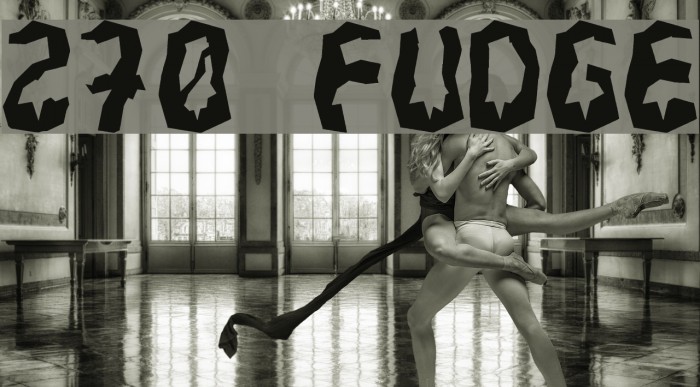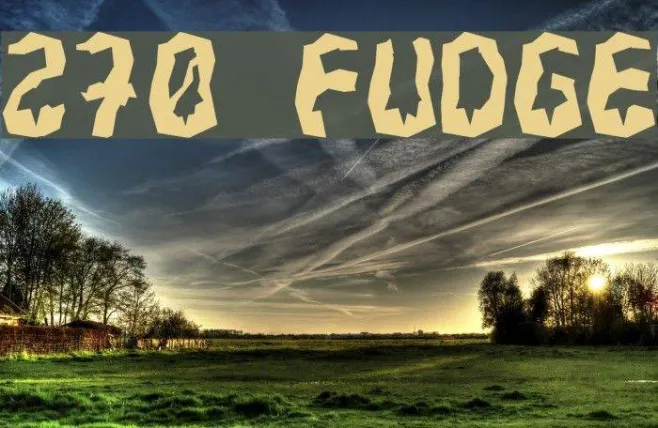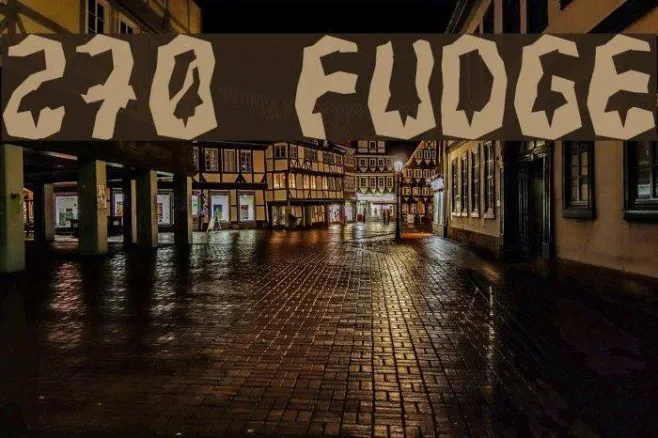
270 Fudge Font
This font features a bold and jagged style, reminiscent of rough, hand-cut shapes. The characters have an uneven, rugged appearance, giving them a dynamic and edgy feel. The uppercase and lowercase letters maintain a consistent design, with sharp angles and irregular edges that create a sense of movement and energy. The numbers and special characters follow the same aesthetic, ensuring a cohesive look across all elements. This font's unique style makes it stand out, ideal for projects that require a bold statement.
A bold, jagged font with a rugged, hand-cut appearance.
- Proposed Projects: Ideal for posters, album covers, video game titles, and any project needing a bold, edgy aesthetic.